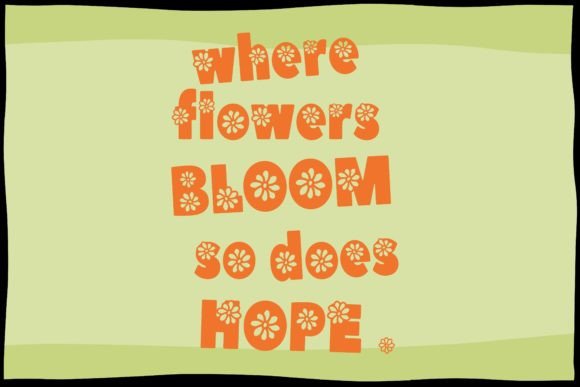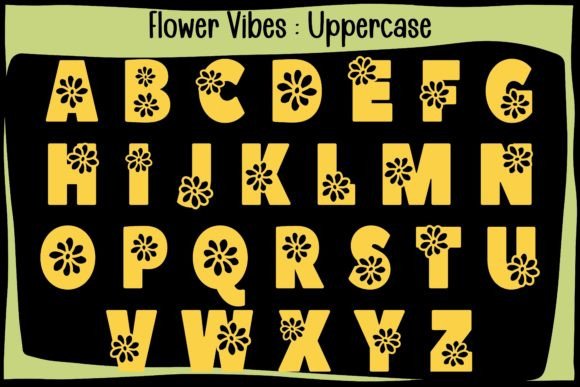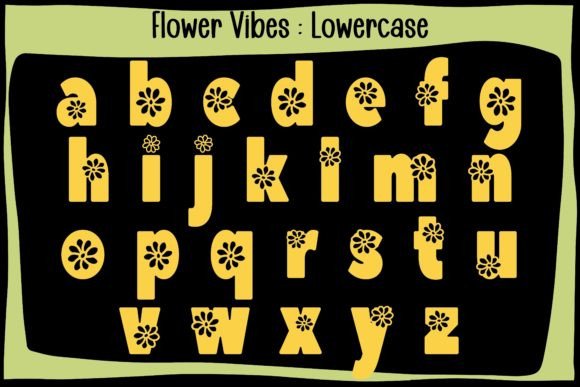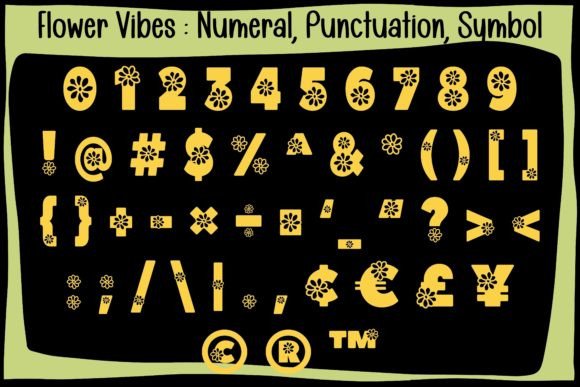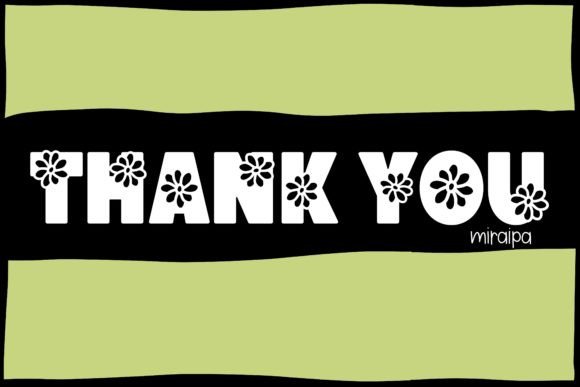
The Magic of Flower Vibes Font: Elevate Your Designs with Whimsy and Charm
I’ll never forget the time I was working on a project for a client who wanted a font that screamed “summer vibes” and “floral fun.” I scoured the internet, tried out countless fonts, but nothing seemed quite right. That was until I stumbled upon Flower Vibes Font. It was like the design gods had finally heard my prayers! With its adorable floral ornaments and hippie vibe, this font was the perfect fit for my project. In this article, I’ll share my love for Flower Vibes Font, its features, and how you can make the most of it in your designs.
An Honest Review of Flower Vibes Font
- ✨ Adorable floral ornaments that add a touch of whimsy to any design
- ✅ Easy to read and perfect for body text or headings
- 🎨 Highly versatile and works well for a variety of design projects, from crafts to branding
- 🌸 Unique and eye-catching, making it perfect for designs that need a bit of personality
While Flower Vibes Font is an amazing addition to any design library, there are a few things to keep in mind:
- 🤔 Some of the glyphs and ornaments can be a bit finicky to access, especially for beginners
- ⚠️ The font may not work as well for very long blocks of text or for designs that require a more formal tone
A Practical Guide to Using Flower Vibes Font
The Backstory of Flower Vibes Font
While the true story behind Flower Vibes Font remains a mystery, it’s easy to imagine that it was created by a designer who loves flowers, sunshine, and good vibes. Perhaps they were inspired by a summer spent in a lush garden, surrounded by vibrant blooms and carefree laughter. Whatever the inspiration, Flower Vibes Font is a true gem that brings a touch of whimsy and charm to any design.
Q: What makes Flower Vibes Font so special?
A: Flower Vibes Font is special because of its unique blend of floral ornaments, hippie vibes, and playfulness. It’s perfect for designs that need a bit of personality and whimsy.
Q: Can I use Flower Vibes Font for body text?
A: While Flower Vibes Font is beautiful, it may not be the best choice for very long blocks of text. However, it’s perfect for headings, titles, or short paragraphs where you want to add a touch of personality.